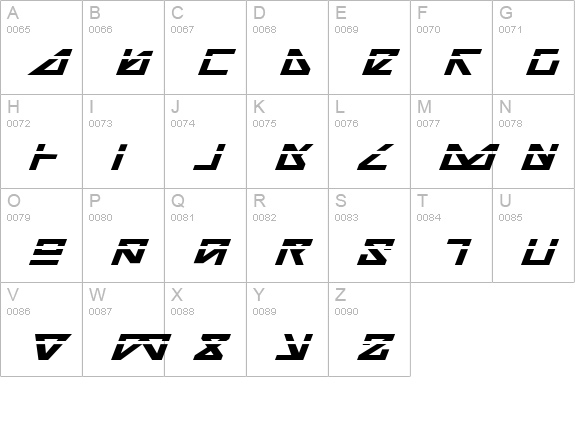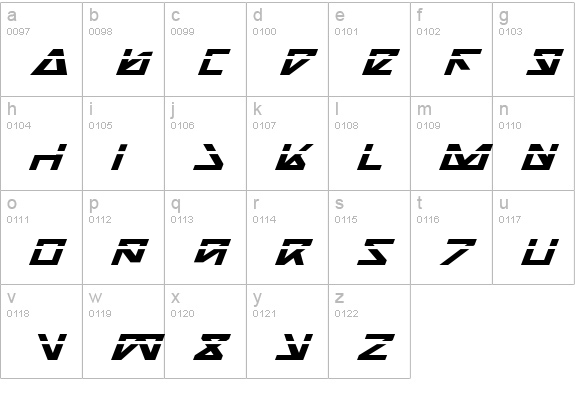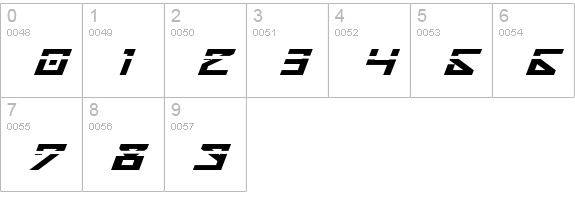
Nick Turbo Bold Expanded ItLas is a strong, high-contrast, extended-width variant in the Nick typeface family \xE2\x80\x94 well suited to headlines, attention-grabbing titles, and strong calls-to-action.
Nick Turbo Bold Expanded ItLas font is a bold and eye-catching typeface that exudes a sense of power and modernity. Its expanded design gives it a unique and dynamic look, making it perfect for headlines, posters, and other display applications. The bold strokes and sharp angles of this font make a strong visual impact, while still maintaining readability. What sets Nick Turbo Bold Expanded ItLas font apart is that it is available for free download at FontsMarket.com. This means that you can easily access and use this striking typeface for your design projects without any cost. Whether you're working on a branding project, advertising campaign, or any other creative endeavor, Nick Turbo Bold Expanded ItLas font is a versatile choice that will make your text stand out. Download it today and add a touch of boldness to your designs!